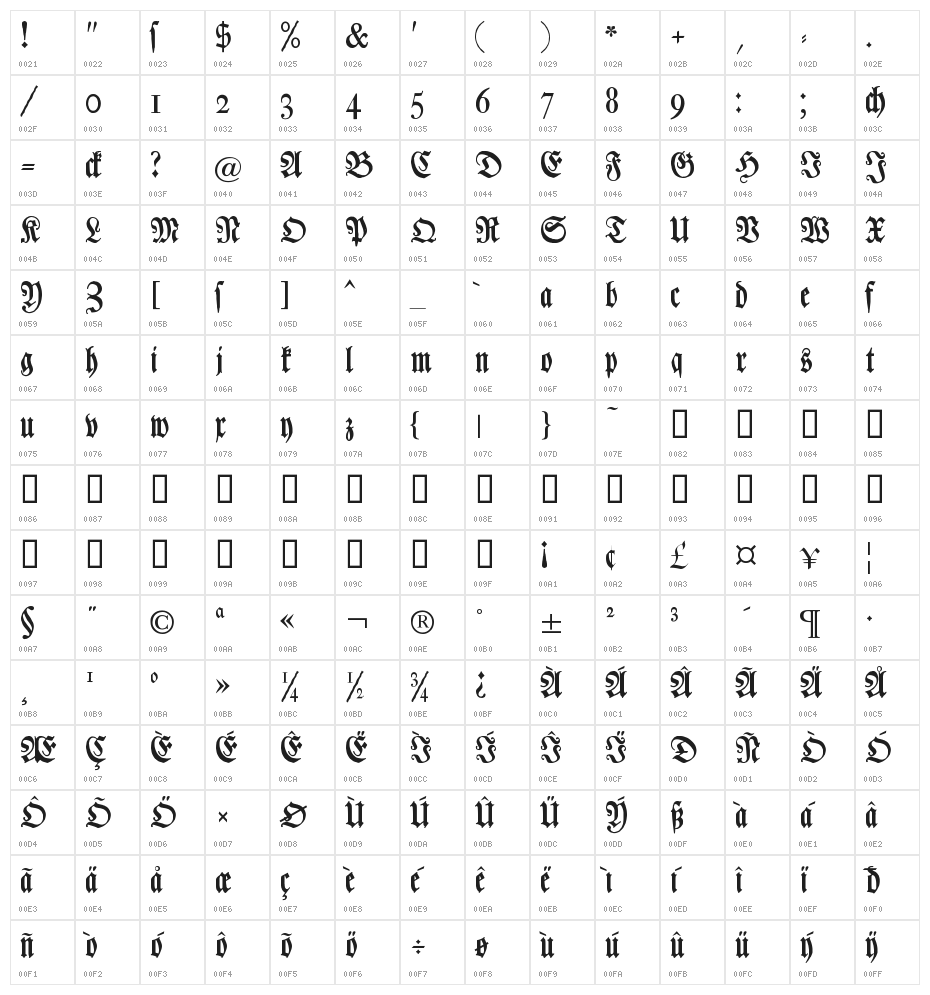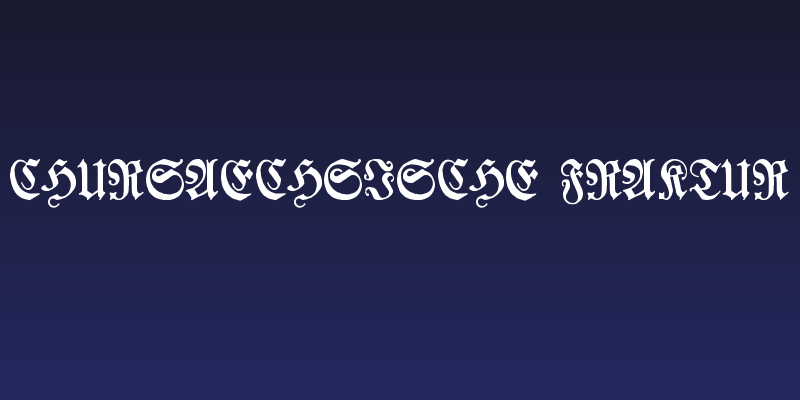
Chursaechsische Fraktur Font
Chursaechsische Fraktur Description
This font exhibits a traditional and ornate style, reminiscent of historical scripts used in medieval manuscripts. The characters are intricately designed with sharp edges and elaborate flourishes, giving it a distinct Gothic appearance. The uppercase letters are particularly decorative, featuring exaggerated serifs and unique curves that enhance its old-world charm. The lowercase letters maintain a consistent style, with a slightly more subdued ornamentation. Numbers and special characters are crafted to match the overall aesthetic, ensuring a cohesive look across all elements. This font's detailed and artistic nature makes it ideal for projects that require a touch of historical elegance.